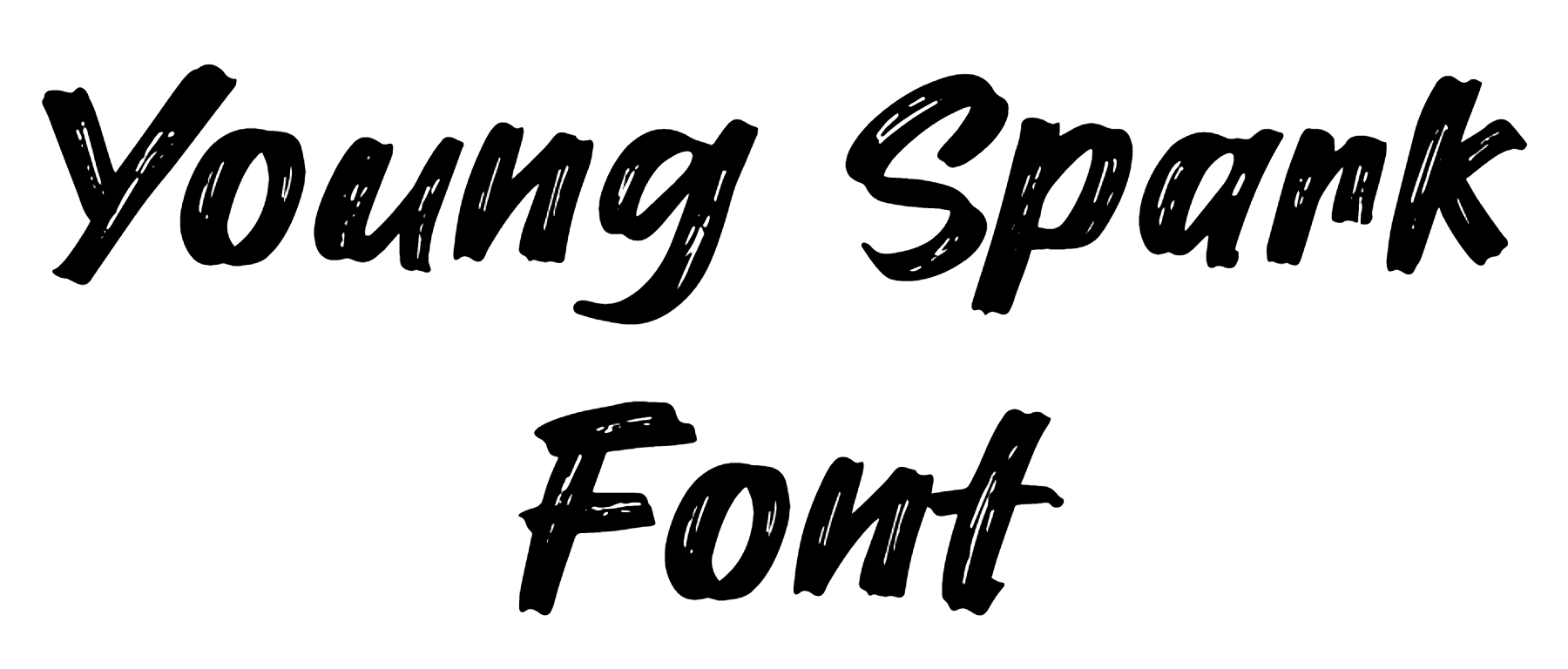
Young Spark
Young Spark is a script font designed by Khurasan and published by Young Spark (2025). The letters have the smooth movement of real pen lettering, which is why even a single name looks special in it. You can download it for free and test it with your own words in the preview above.
What You Can Type With Young Spark
With complete upper and lowercase letters and all ten digits, Young Spark is ready for real wording, not just a single headline. Common punctuation such as &, !, ? and @ is included as well. It doesn't include accented letters such as é or ñ, which makes it an English-only font.
Where Young Spark Works Best
Young Spark is a natural fit for wedding invitations, logos and signature-style headings. Script fonts read best in short bursts, so keep it to names, titles and one-line quotes. Skip all caps: script capitals are drawn to start a word, not to fill one.
Who designed Young Spark font?
Does Young Spark support accented letters?
No. Young Spark has no accented letters such as é, ñ or ü, so it's best for English text.